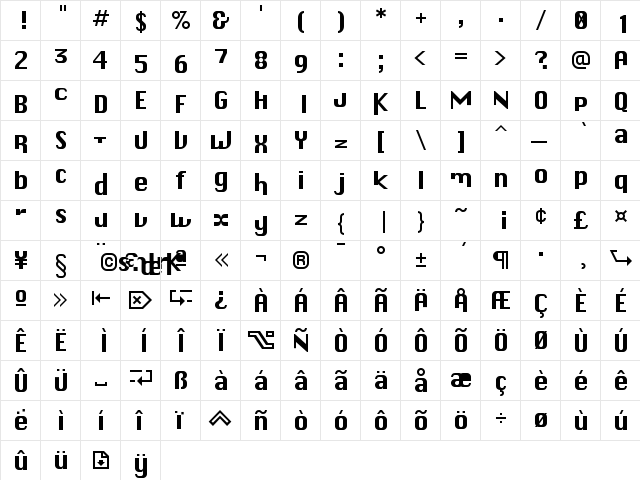
Chicagogo Regular Font Preview
Chicagogo Regular
Design Context for Chicagogo Typeface
Chicagogo offers clean, dependable letterforms without strong stylistic allegiance, making it a practical choice for designers who need flexibility.